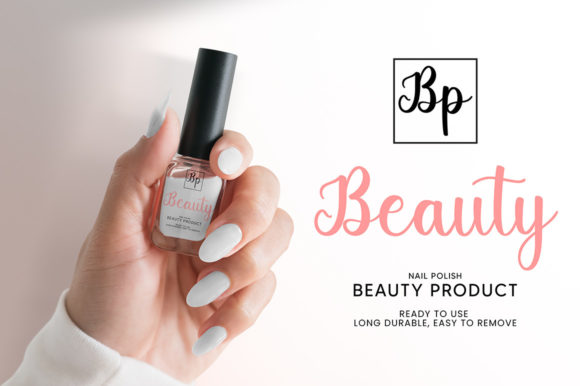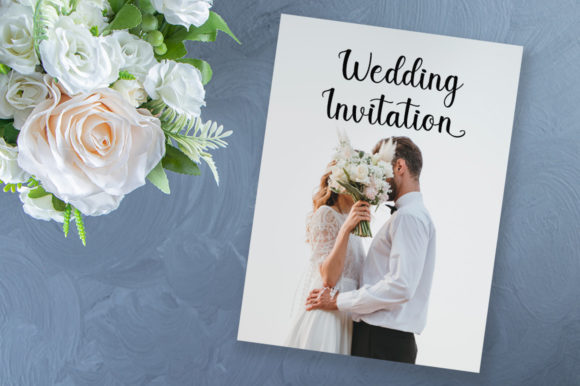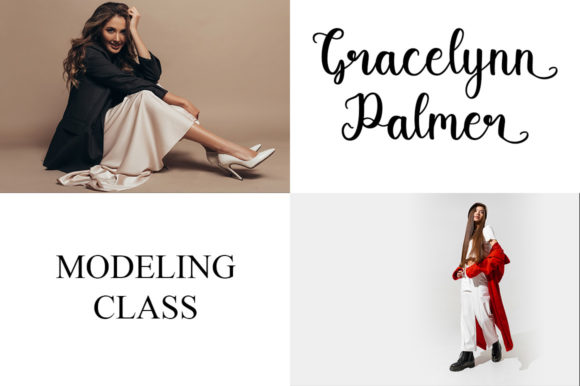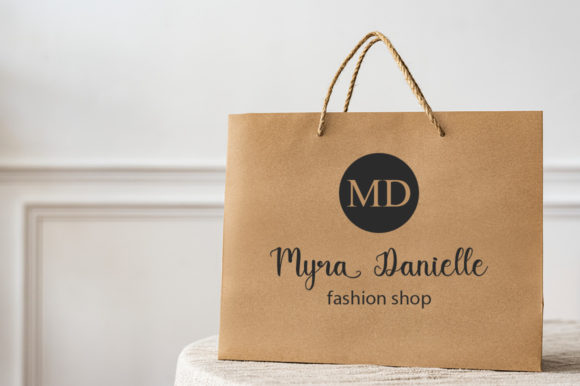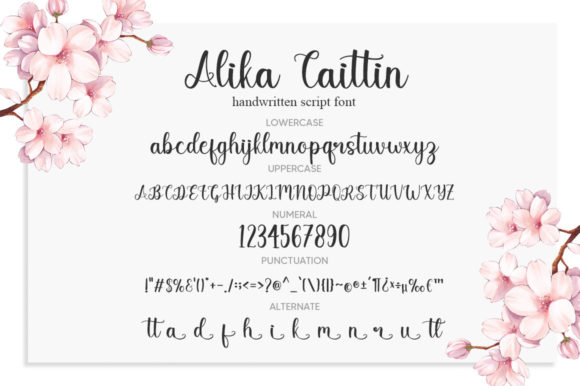
Alika Caitlin Font
About Alika Caitlin Font
Alika Caitlin is a lovely and timeless handwritten font. It is the best choice for creating eye-catching logos, branding, and quotes. Every letter has a unique and beautiful touch that will make your design come alive!